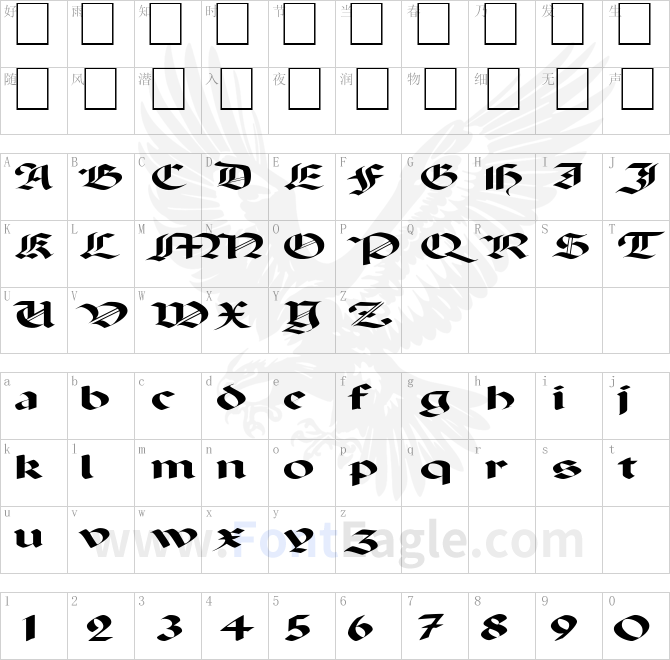
FZ-GOTHIC-6-EX is a great font, widely used in graphic design, single-page menu design, poster design and other fields, and is deeply loved by designers.FZ-GOTHIC-6-EX download.